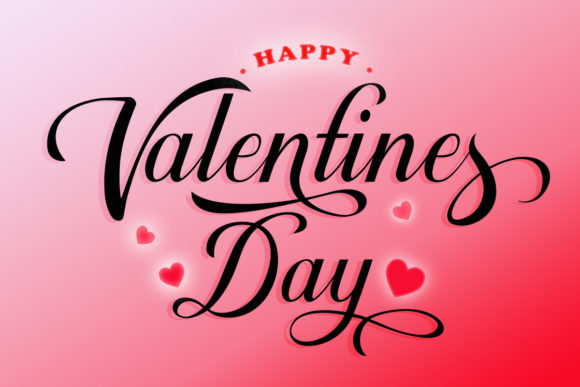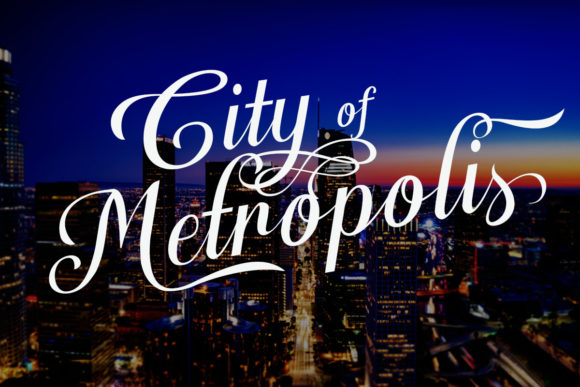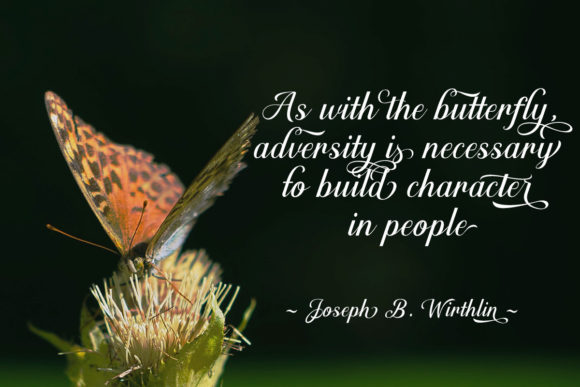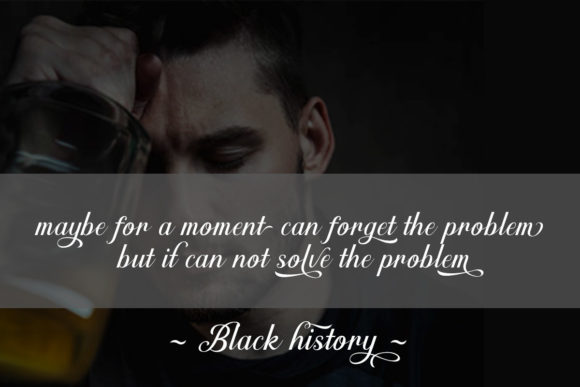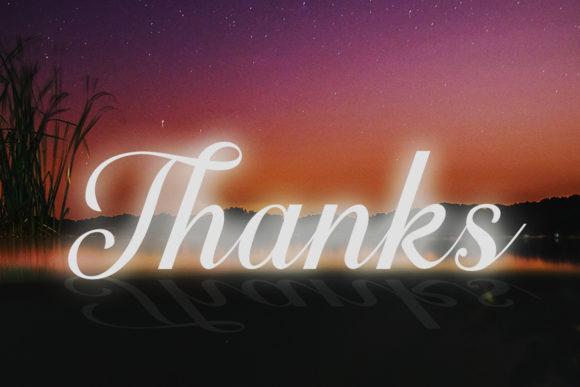
Introducing Flamboyan Font: The Epitome of Elegance and Charm
Are you on the hunt for a font that exudes romance, elegance, and sophistication? Look no further than Flamboyan Font, a beautiful handwritten typeface that is sure to capture the hearts of designers, crafters, and anyone in need of lovely typography. In this article, we’ll dive into the world of Flamboyan Font, exploring its features, benefits, and uses, as well as provide tips on how to make the most of this stunning font.
What is Flamboyan Font?
Flamboyan Font is a flowing and delicate handwritten font that embodies charm and elegance in every character. Its intricate and curved lines, combined with its whimsical and romantic feel, make it the perfect choice for projects that require a touch of sophistication. Whether you’re working on a wedding invitation, a branding project, or a craft design, Flamboyan Font is sure to add a dash of elegance and refinement.
Key Features of Flamboyan Font
• PUA Encoded: Flamboyan Font is PUA (Private Use Area) encoded, which means you can access all of the glyphs and swashes with ease. This feature allows you to unlock the full potential of the font, giving you access to a wide range of characters, including ligatures, alternates, and ornaments.
• Handwritten Elegance: Flamboyan Font boasts a beautiful, handwritten aesthetic that is both elegant and refined. Its delicate lines and curves create a sense of movement and fluidity, making it perfect for projects that require a touch of whimsy and romance.
• Romantic Typography: With Flamboyan Font, you can create romantic and eye-catching typography that is sure to capture the hearts of your audience. Whether you’re designing a wedding invitation, a Valentine’s Day card, or a romantic poster, this font is sure to deliver.
Benefits of Using Flamboyan Font
So, why choose Flamboyan Font for your next project? Here are just a few benefits of using this stunning font:
• Elegance and Sophistication: Flamboyan Font adds a touch of elegance and sophistication to any project, making it perfect for high-end branding, wedding designs, and craft projects.
• Versatility: With its PUA encoding and wide range of glyphs and swashes, Flamboyan Font is incredibly versatile, making it suitable for a wide range of projects, from digital designs to print materials.
• Easy to Use: Despite its intricate and delicate lines, Flamboyan Font is surprisingly easy to use, even for those with limited design experience.
Tips for Using Flamboyan Font
To get the most out of Flamboyan Font, here are a few tips to keep in mind:
• Pair with Simple Backgrounds: Flamboyan Font is a statement font, so it’s best to pair it with simple backgrounds that won’t compete with the font’s intricate lines and curves.
• Experiment with Swashes: With its PUA encoding, Flamboyan Font comes with a range of swashes and glyphs that can add an extra touch of elegance and whimsy to your designs.
• Use for Headlines and Titles: Flamboyan Font is perfect for headlines and titles, where its elegant and refined aesthetic can really shine.
In conclusion, Flamboyan Font is a stunning handwritten font that embodies charm, elegance, and sophistication. With its PUA encoding, delicate lines, and romantic aesthetic, it’s the perfect choice for designers, crafters, and anyone in need of lovely typography. Whether you’re working on a wedding invitation, a branding project, or a craft design, Flamboyan Font is sure to add a touch of refinement and elegance. So why wait? Download Flamboyan Font today and start creating beautiful, romantic typography that will capture the hearts of your audience!